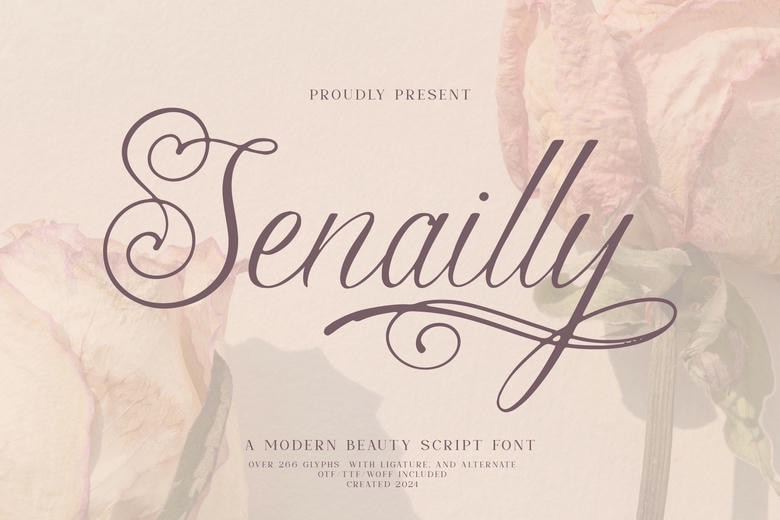
Senailly Font
Senailly is a Modern Beauty Script, from Denustudios, suitable for any projects such as: company names, logo designs, home accessories, product designs, cups, words, banners, sacks, tshirts, book covers, business cards, invitations, greetings cards, label designs, photography, watermarks, special occasions and all your other good projects that require Modern Beauty Script flavour.
Senailly Calligraphy Script Font